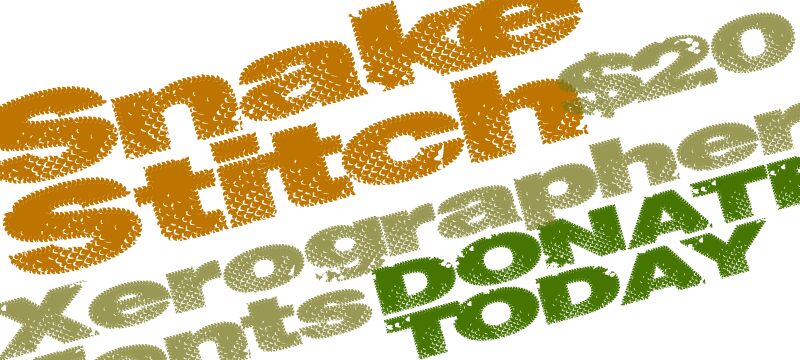
SnakeStitch by Xerographer Fonts is a free eroded display font with broad, rounded letters covered in a dense, scale-like stitch texture. Chipped contours and irregular flecks make each form look gnawed, woven, or assembled from tiny serpentine marks.
Reptiles, monster stories, and rough textile themes are its natural territory. It suits game graphics, music posters, apparel, and horror event branding. Across these uses, the repeating hooked pattern lets the lettering double as texture and image rather than ordinary type.